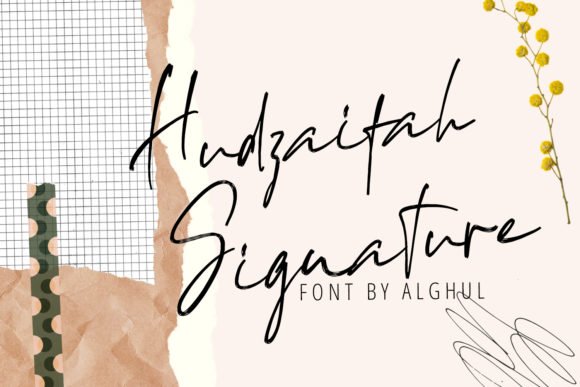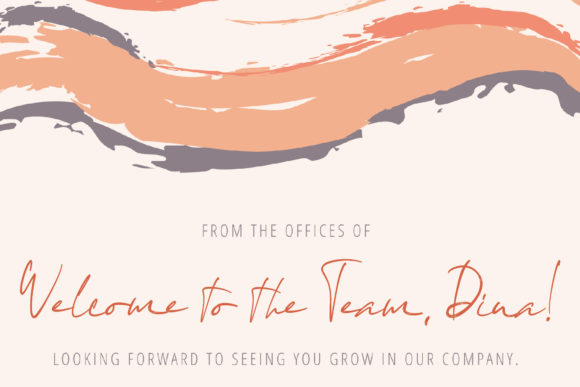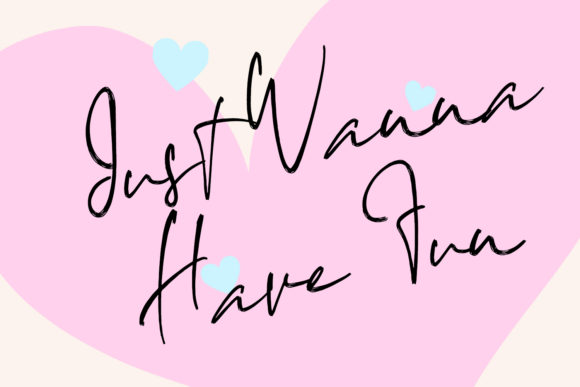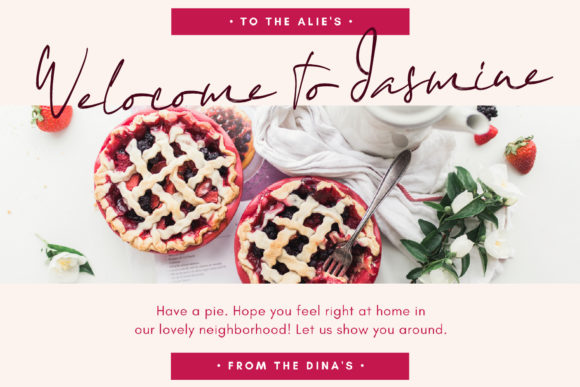
The Perfect Blend of Elegance and Versatility
As a designer, have you ever found yourself stuck in a creative rut, searching for the perfect font to bring your vision to life? I know I have. There’s something magical about discovering a font that not only captures the essence of your design but also adds a touch of personality to it. And that’s exactly what happens when you fall in love with the Hudzaifah Font.
This delicate and elegant handwritten font is a masterpiece in its own right. With its distinct and well-rounded letters, it’s the perfect addition to any design project. Whether you’re working on a wedding invitation, a logo, or a social media graphic, Hudzaifah Font is sure to elevate your design to the next level.
For designers, Hudzaifah Font is a valuable asset that can add a touch of sophistication and elegance to any project. Its versatility makes it perfect for a wide range of designs, from modern to traditional, and its unique character makes it stand out from the crowd.
Hudzaifah Font Key Features
- Font Family: Hudzaifah, Hudzaifah Regular, Hudzaifah Italic, Hudzaifah Bold, Hudzaifah Bold Italic
- Font Size: Supports font sizes ranging from 8pt to 120pt
- Resolution: Supports resolutions up to 1200 DPI
- Unique Characteristics: The Hudzaifah font is a modern, elegant script font with intricate details and unique ligatures, making it ideal for formal and luxurious designs
- Language Support: Supports a wide range of languages, including Latin, Cyrillic, Greek, and Arabic scripts
Hudzaifah Font Review
Overall, I’d say Hudzaifah Font is a decent addition to any designer’s toolkit. Here are some things that I think work well:
- ✨ Unique flair: The font’s unique aesthetic is sure to stand out in any design project.
- ✨ Great for headlines: Hudzaifah Font’s bold lines make it perfect for use as a headline font.
- ✨ Versatile: While it may not be the best choice for body text, Hudzaifah Font can still be used effectively for titles, captions, and other smaller text elements.
- ⚠️ Readability issues: At smaller font sizes, the font can become difficult to read, making it unsuitable for body text.
- ⚠️ Limited font weights: While the font includes several weights, it could benefit from a few more options to provide greater flexibility.
Overall, I’d give Hudzaifah Font 3.5 out of 5 stars. While it’s not perfect, it’s a great choice for designers looking to add some flair to their projects. Just be sure to use it thoughtfully and in the right context.
Tips for Getting the Most Out of Hudzaifah Font
Use Hudzaifah Font for creative and artistic projects that require a unique and exotic touch. Experiment with different font sizes, colors, and combinations to create visually striking designs.
Hudzaifah Font is ideal for projects related to Middle Eastern culture, Islamic art, or Arabic calligraphy. Use it for posters, flyers, brochures, or other marketing materials to add a touch of elegance and sophistication.
Alternatives to Hudzaifah Font for Designers
Open Sans is a modern sans-serif font that is highly legible and versatile. It is suitable for a wide range of applications, including body text, headings, and UI elements. Open Sans is a great choice when you need a clean and neutral font that works well in both digital and print media.
Comparison to Hudzaifah Font: Open Sans has a more neutral and clean appearance compared to Hudzaifah Font’s unique, handwritten feel. While Hudzaifah Font is more suited for creative or artistic projects, Open Sans is a better choice for more formal or corporate designs.
Lato is a sans-serif font that is highly customizable and comes in a wide range of weights and styles. It is suitable for use in headings, body text, and UI elements, and is particularly well-suited for digital applications. Lato has a friendly and approachable feel that makes it a great choice for projects that require a human touch.
Q: Is Hudzaifah Font compatible with right-to-left languages?
Yes, Hudzaifah Font is designed to be compatible with right-to-left languages, including Arabic and Hebrew. The font includes support for bidirectional text rendering and is optimized for use with languages that read from right to left.